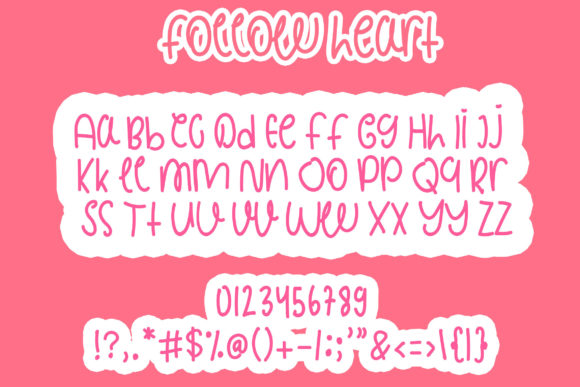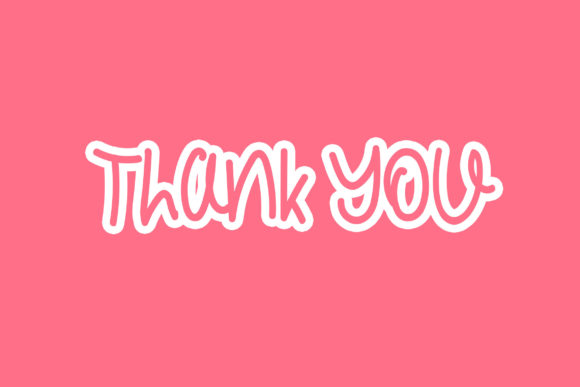
The Sweet Spot: Discovering the Joy of Follow Heart Font
I’ll never forget the time I was working on a children’s book project, and I just couldn’t find the right font to match the playful illustrations. The client wanted something that would appeal to kids and parents alike, but everything I tried seemed either too serious or too over-the-top. That’s when I stumbled upon Follow Heart Font, and it was like a breath of fresh air. In this article, I’ll share my experience with this lovely font, and explore its features, uses, and alternatives.
A Personal Review: What I Love About Follow Heart Font
Follow Heart Font is a round-lettered and sweet handwritten font that’s perfect for adding a touch of joy to any design project. Here are some things I love about it:
- ✨ Playful and whimsical: Follow Heart Font has a carefree, hand-drawn feel that’s perfect for cartoon-related designs, children’s games, and quotes.
- ✅ Highly legible: Despite its playful nature, the font is surprisingly easy to read, even at smaller sizes.
- 💕 Emotional connection: The font’s sweet and gentle vibe makes it perfect for designs that require a touch of warmth and personality.
While Follow Heart Font is an excellent choice for many projects, there are a few things to keep in mind:
- 🤔 Limited use in formal contexts: Due to its playful nature, Follow Heart Font might not be the best fit for formal or professional designs, such as business reports or academic papers.
- ⚠️ Glyph limitations: While the font has a range of standard glyphs, it might not have all the special characters or diacritical marks you need for certain languages or projects.
The Designer Inspiration Behind Follow Heart Font
While I couldn’t find any information on the actual designer behind Follow Heart Font, I like to imagine that it was created by a designer who’s passionate about spreading joy and positivity through typography. Perhaps they were inspired by the whimsical world of children’s illustrations or the playfulness of hand-drawn letters.
Here are some common questions about Follow Heart Font:
- Q: What type of designs is Follow Heart Font best suited for?
- A: Follow Heart Font is perfect for cartoon-related designs, children’s games, quotes, titles, brand names, book covers, posters, and any other design that requires a touch of joy and playfulness.
- Q: Does Follow Heart Font have any special features or glyphs?
- A: Yes, Follow Heart Font has a range of standard glyphs, as well as some special characters and stylistic alternates that you can access through the OpenType features.